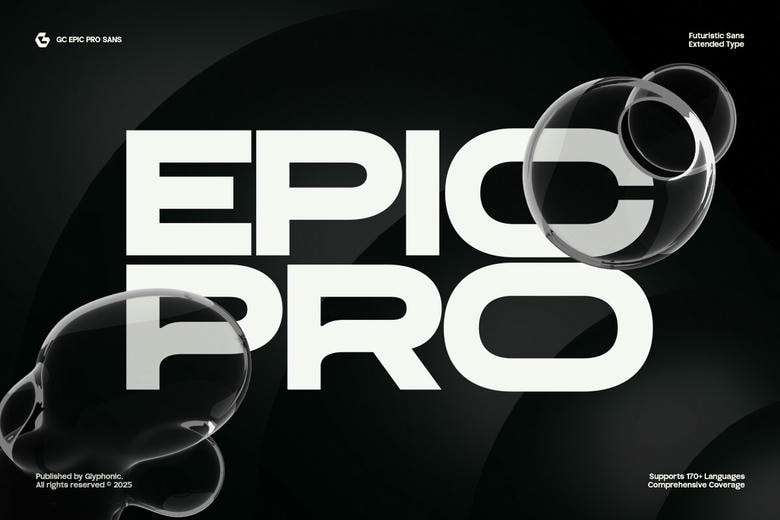
Epic Pro Font
EPIC PRO is an elongated and futuristic stark sans-serif display that blends bold dimensions and exquisitely contemporary design. Designed with the needs of a clear and powerful designer, it can take on a headline, power up a tech brand, give a logo power to a sports brand, and put the edge in editorial layout. The characters are confident with broad faces, angular lines and tight geometries that make it have a very futuristic look.
Suitable for slick science-fiction graphics, esports club design or trendy UI/UX layout and interface, EPIC PRO is a high-performance font in the future-facing style. It features both upper- and lower-case letters, dynamic ligatures, stylistic alternates and multi-language support. EPIC PRO lets itself go strong with strong titling to elegant interfaces.
Epic Pro Sans Serif Font